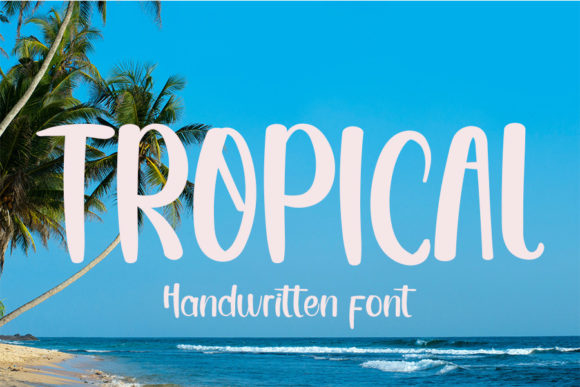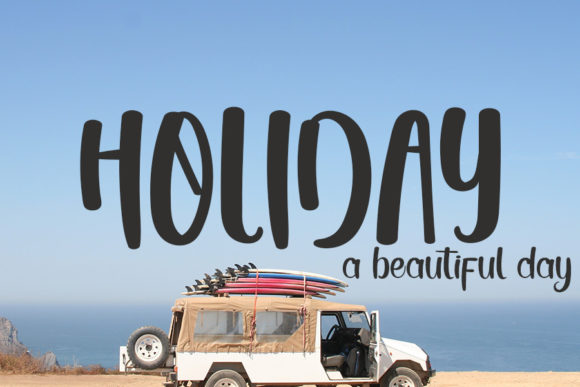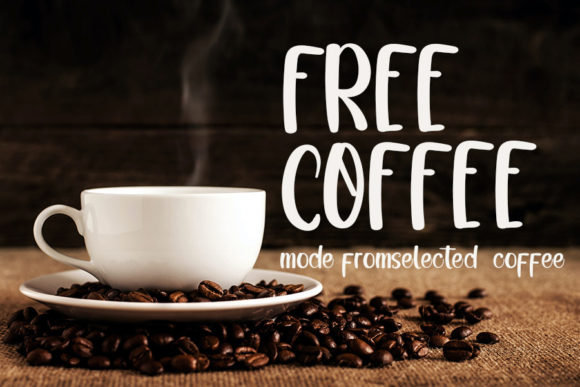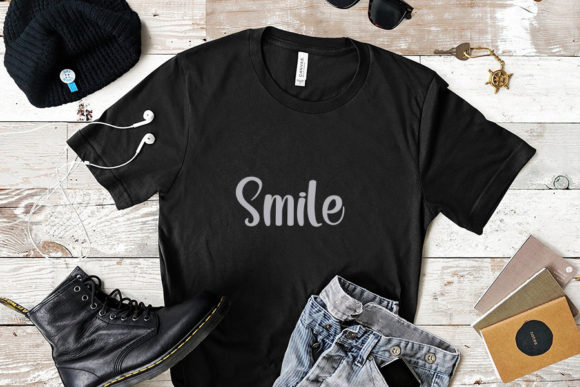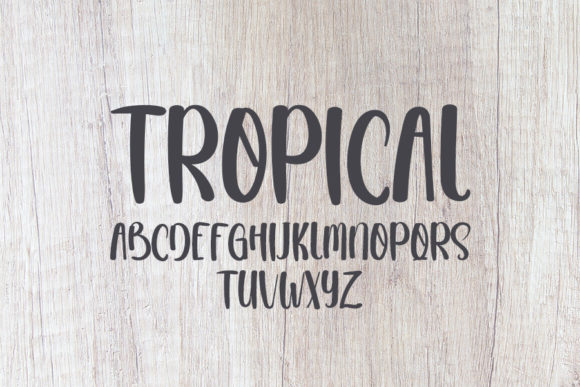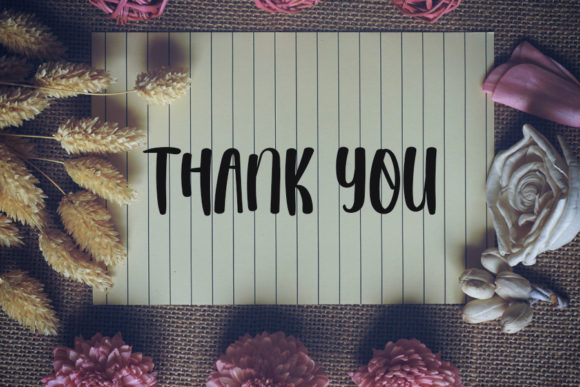
Tropical Font
Tropical is a stylish handwritten font with a contemporary atmosphere and impeccable form, inspired by a timeless classic calligraphy. Balanced and varied, this font was designed to enhance the beauty of your projects.